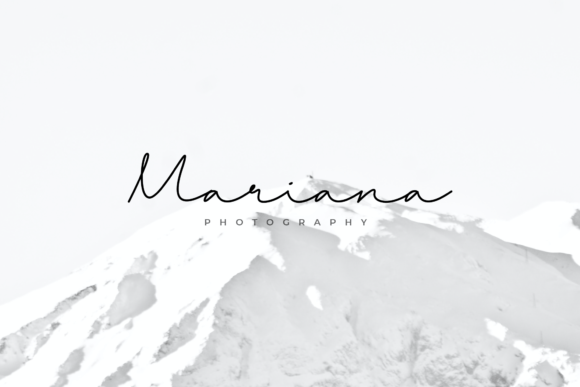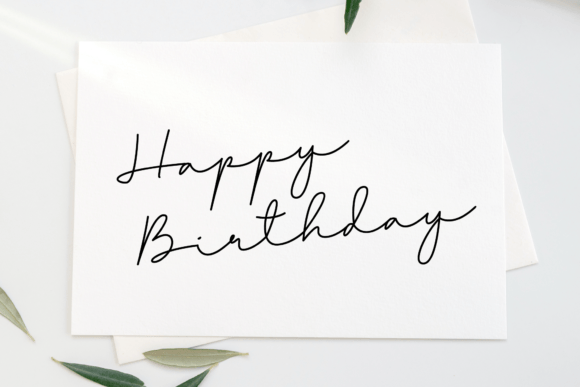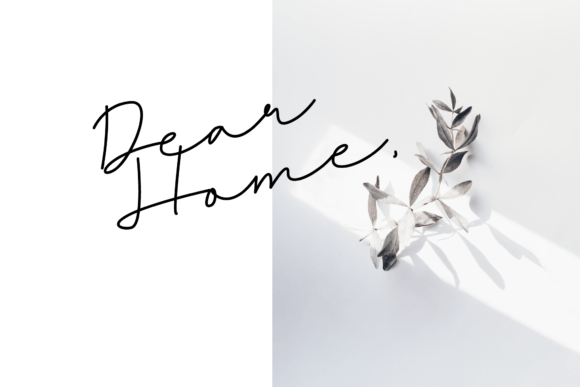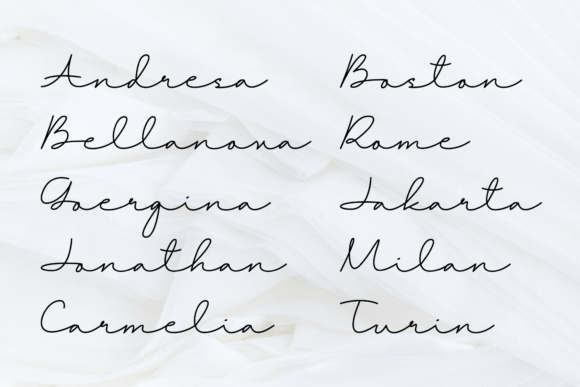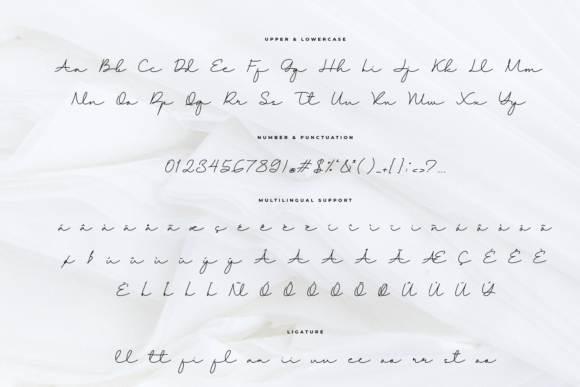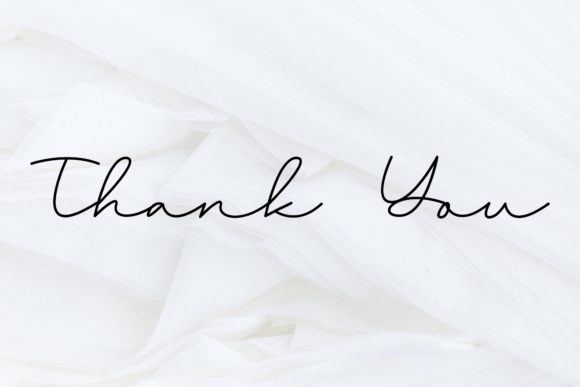
Helmord Font
About Helmord Font
Helmord Font is a lovely and timeless monoline signature typeface designed to bring elegance and individuality to your creative projects. With smooth strokes, flowing lines, and graceful details, it delivers a professional yet personal touch that feels both modern and classic. Because of its flexibility, Helmord Font is ideal for logos, branding, invitations, quotes, packaging, and many other stylish design needs.
A Signature Typeface with Elegant Simplicity
Signature fonts often convey class and authenticity, and Helmord Font excels in this area. Its monoline style provides a balanced and consistent flow, making every letter look natural and refined. Moreover, its timeless quality ensures that it remains a reliable option for projects that need sophistication without losing personality.
Perfect Typeface for Logos and Branding
When it comes to branding, Helmord Font shines with versatility. For instance, it works beautifully on boutique logos, business cards, and product packaging. In addition, it adapts seamlessly to social media content, advertisements, and editorial layouts, ensuring your brand identity feels polished and stylish.
A Monoline Script for Invitations and Quotes
For personal projects, Helmord Font is an excellent choice. It adds charm to wedding invitations, thank-you cards, and handwritten quotes. Furthermore, it enhances posters, flyers, and custom merchandise, giving your designs a unique and professional look that stands out in both digital and print media.
Flexible Across Print and Digital Platforms
One of the key advantages of Helmord Font is its adaptability. In print, it brings refinement to stationery, magazines, and promotional materials. Digitally, it integrates smoothly into blogs, websites, and e-commerce platforms. Since it scales beautifully from small labels to large banners, it ensures readability and elegance across every format.